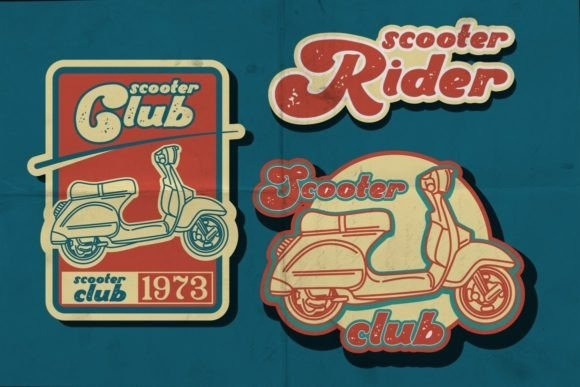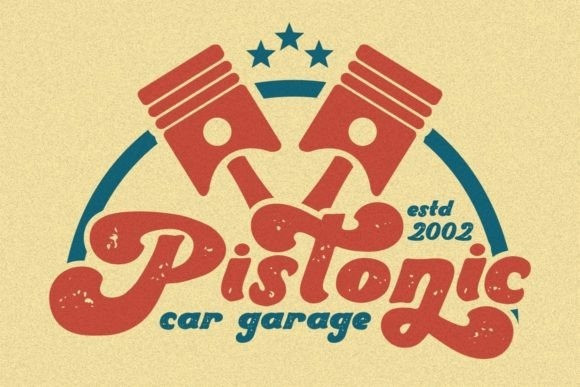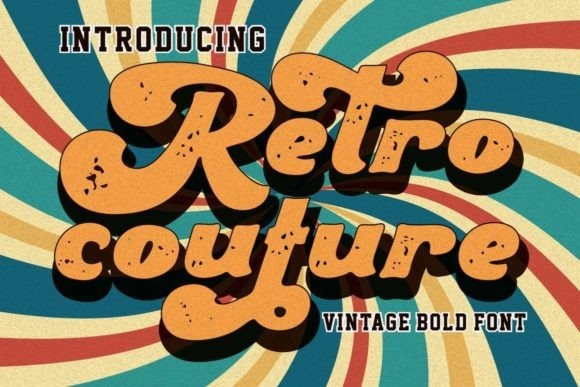
Retro Couture Font
Retro Couture Display Font is a stylish script display font inspired by vintage poster design. This font is perfect for storybooks, illustrations, comic books, t-shirts, posters, greeting cards, logos, branding, stickers, or anything that needs a cool, retro accent. Retro Couture is PUA encoded which means you can access all the glyphs and ligatures with ease!